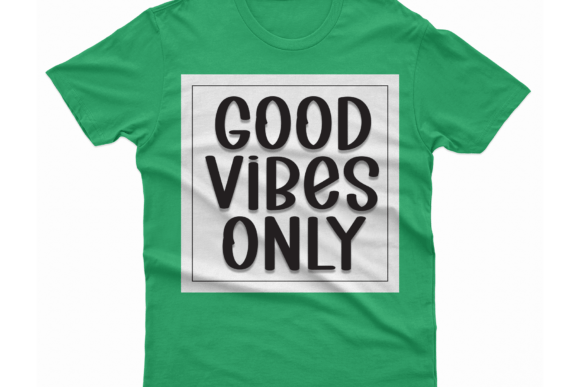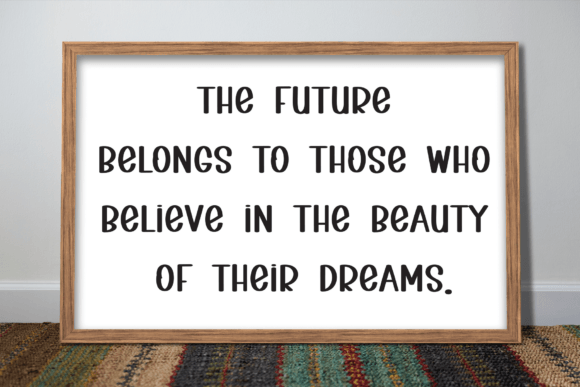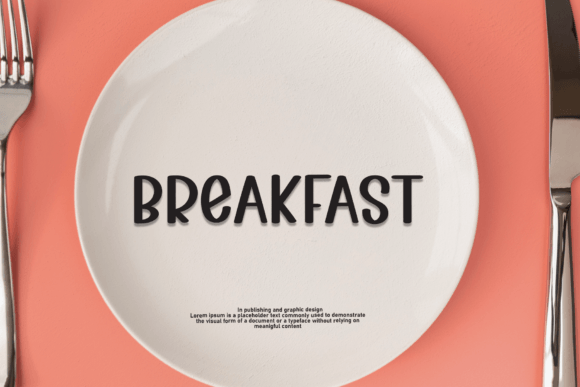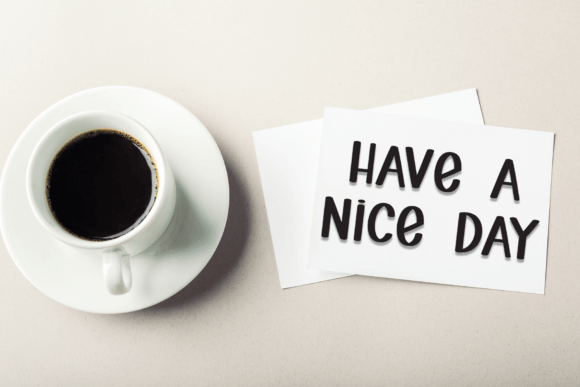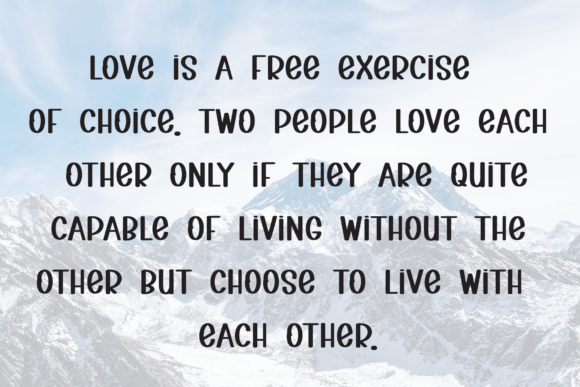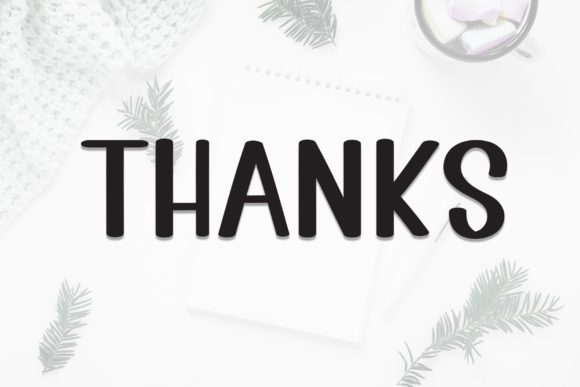
Introducing the December Minimalist Font: Elevate Your Designs with Whimsical Charm
Are you tired of using the same old fonts in your designs? Do you want to add a touch of personality and whimsy to your typographic compositions? Look no further than the December Minimalist Font, a delightfully playful and affable handwritten display font that’s sure to elevate your designs from ordinary to exquisitely charming.
The Perfect Blend of Sweetness and Vibrancy
Delicately sweet yet teeming with vibrancy, this one-of-a-kind typeface is the perfect choice for designers and crafters who want to add a splash of fun to their work. Whether you’re designing wedding invitations, greeting cards, or any other type of project that needs a personal touch, this font is sure to impress. Its unique blend of sweetness and playfulness makes it an ideal choice for anyone looking to create designs that are both elegant and eye-catching.
Why Choose the December Minimalist Font?
So, what sets the December Minimalist Font apart from other fonts on the market? Here are just a few reasons why designers and crafters are falling in love with this charming typeface:
- Unique and Playful Design: This font is unlike anything you’ve ever seen before. Its playful, handwritten design is sure to add a touch of personality to any project.
- Versatile: Whether you’re designing wedding invitations, greeting cards, or social media graphics, this font is versatile enough to use in a wide range of projects.
- Elegant and Refined: Despite its playful nature, this font is also surprisingly elegant and refined, making it perfect for designs that require a touch of sophistication.
Use the December Minimalist Font to Create Enchanting Designs
Any design in need of a jovial personal touch will blossom under the allure of this font. Imagine being able to create wedding invitations that are both elegant and playful, or greeting cards that are sure to put a smile on the recipient’s face. With the December Minimalist Font, you can create designs that are truly enchanting and memorable.
Tips for Using the December Minimalist Font
Here are a few tips for getting the most out of the December Minimalist Font:
- Use it as a Display Font: This font is perfect for use as a display font, where it can be used to add a touch of personality and whimsy to headings and titles.
- Pair it with Other Fonts: Don’t be afraid to pair the December Minimalist Font with other fonts to create a unique and eye-catching typographic composition.
- Experiment with Different Colors: This font looks great in a wide range of colors, so don’t be afraid to experiment and find the perfect hue for your design.
Be the Maestro of an Enchanting Design Symphony
With the December Minimalist Font, you can be the maestro of an enchanting design symphony. Whether you’re a designer, crafter, or simply someone who loves to create, this font is sure to inspire you to new heights. So go ahead, get creative, and see what amazing designs you can create with this strikingly fun font.